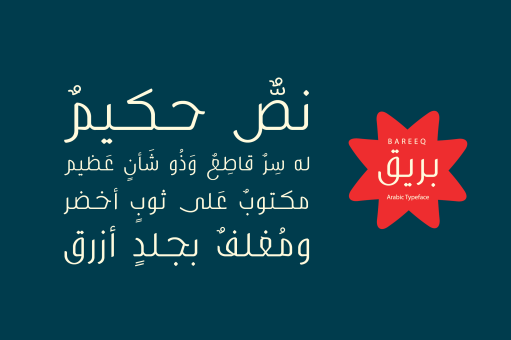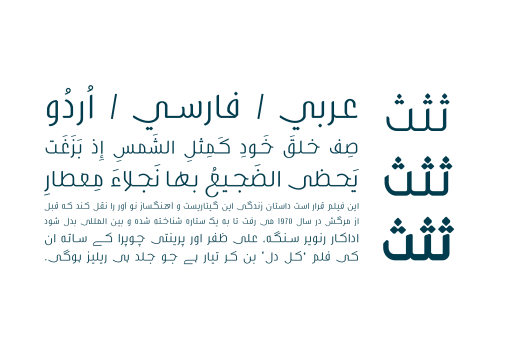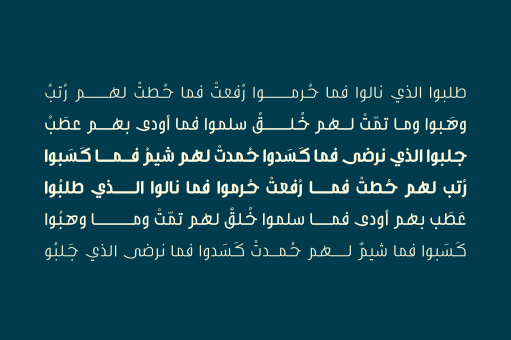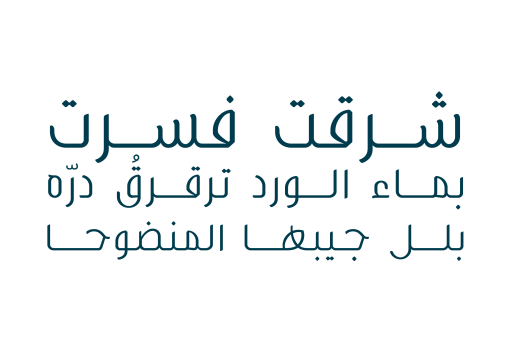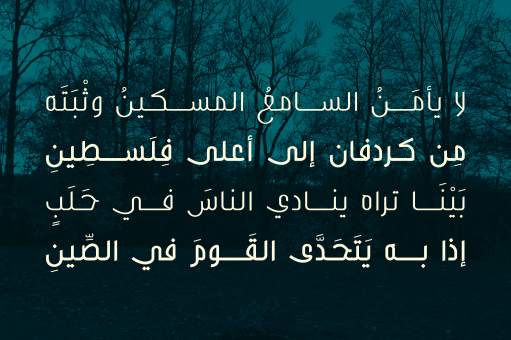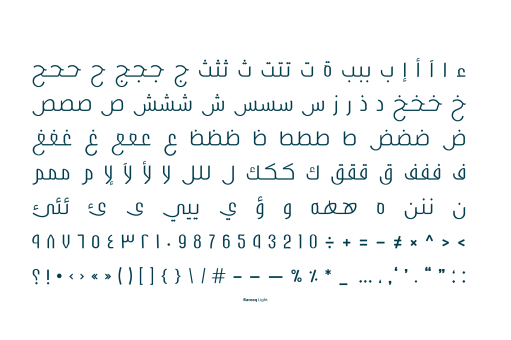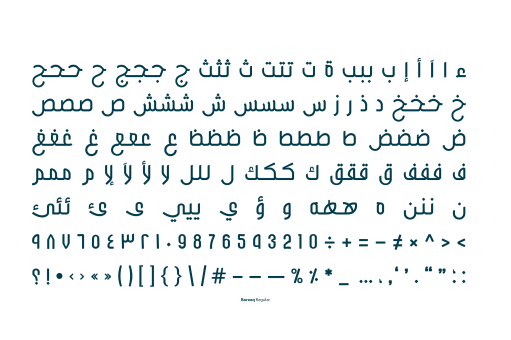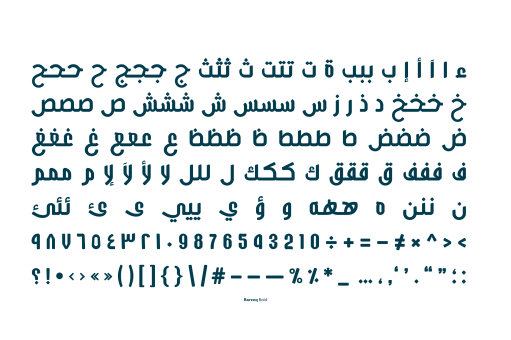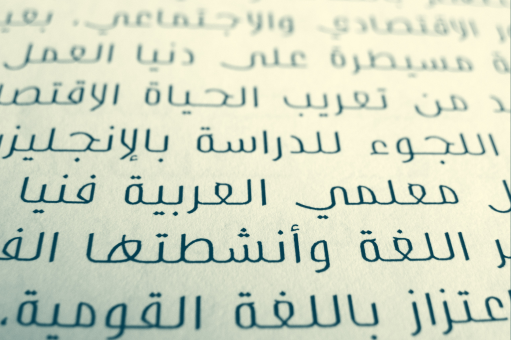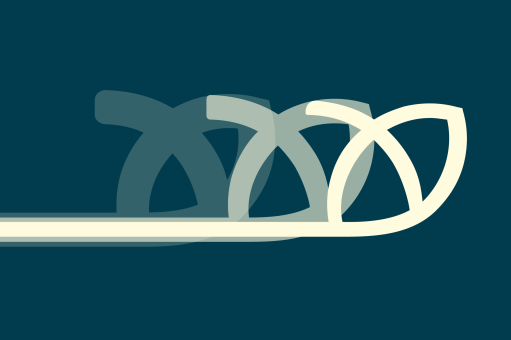
Bareeq
The word Bareeq is the Arabic for Glitter. Bareeq is an Arabic typeface that fuses the traditional Arabic script with modern design. It suits various range of design applications including web and print. Bareeq typeface consists of three weights; Light, Regular, and Bold.